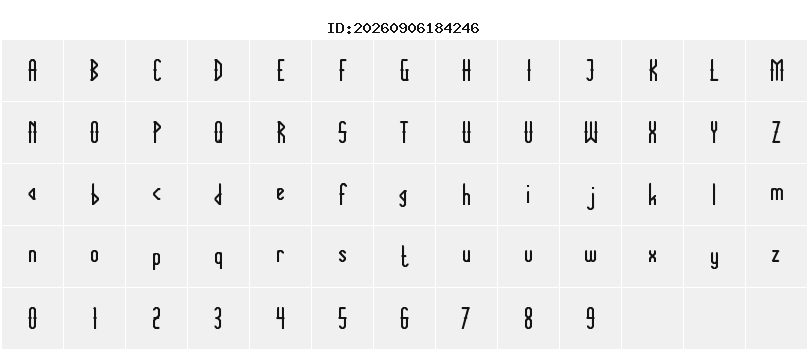
THE INNOCENT ARMY Preview
• Font Name: THE INNOCENT ARMY
• Full Font Name: THE INNOCENT ARMY
• Version: Version 1.00 March 29, 2016, initial release
About THE INNOCENT ARMY.ttf
THE INNOCENT ARMY.ttf is a modern, elegant sans-serif font designed for ultimate readability and visual harmony. Perfect for branding, headlines, web design, and print materials.